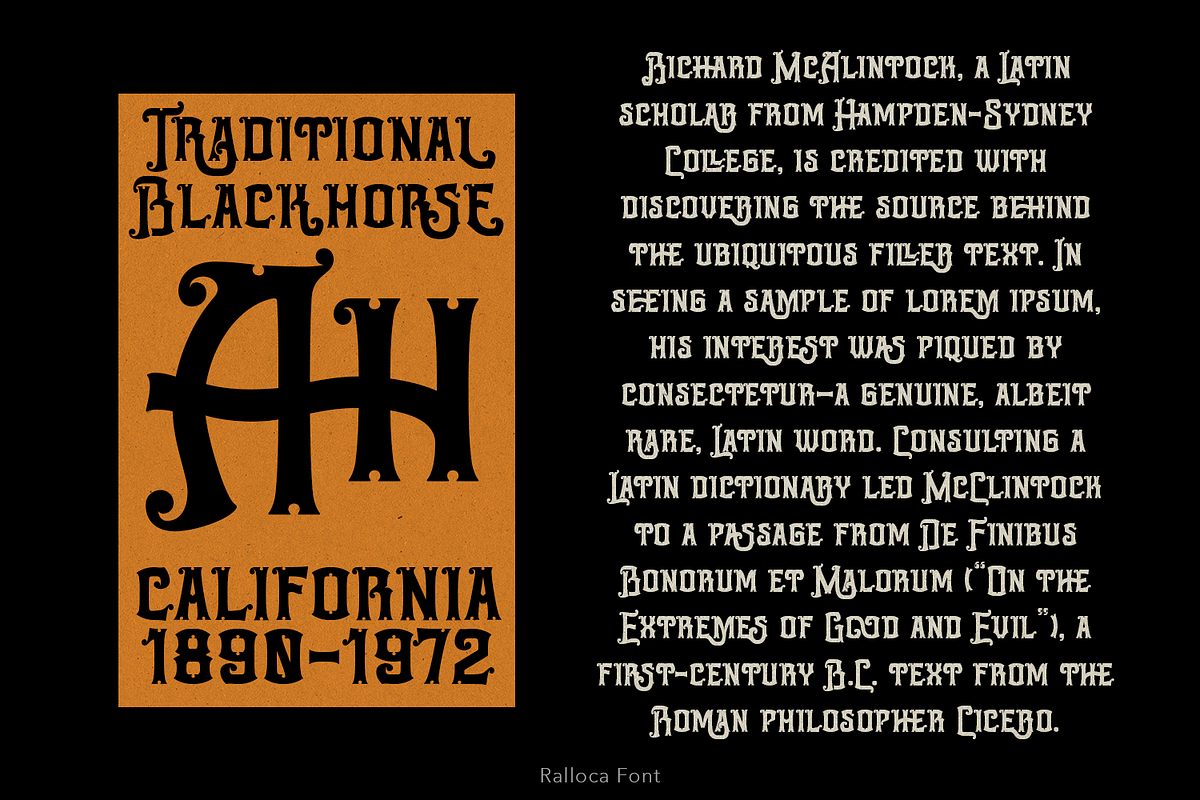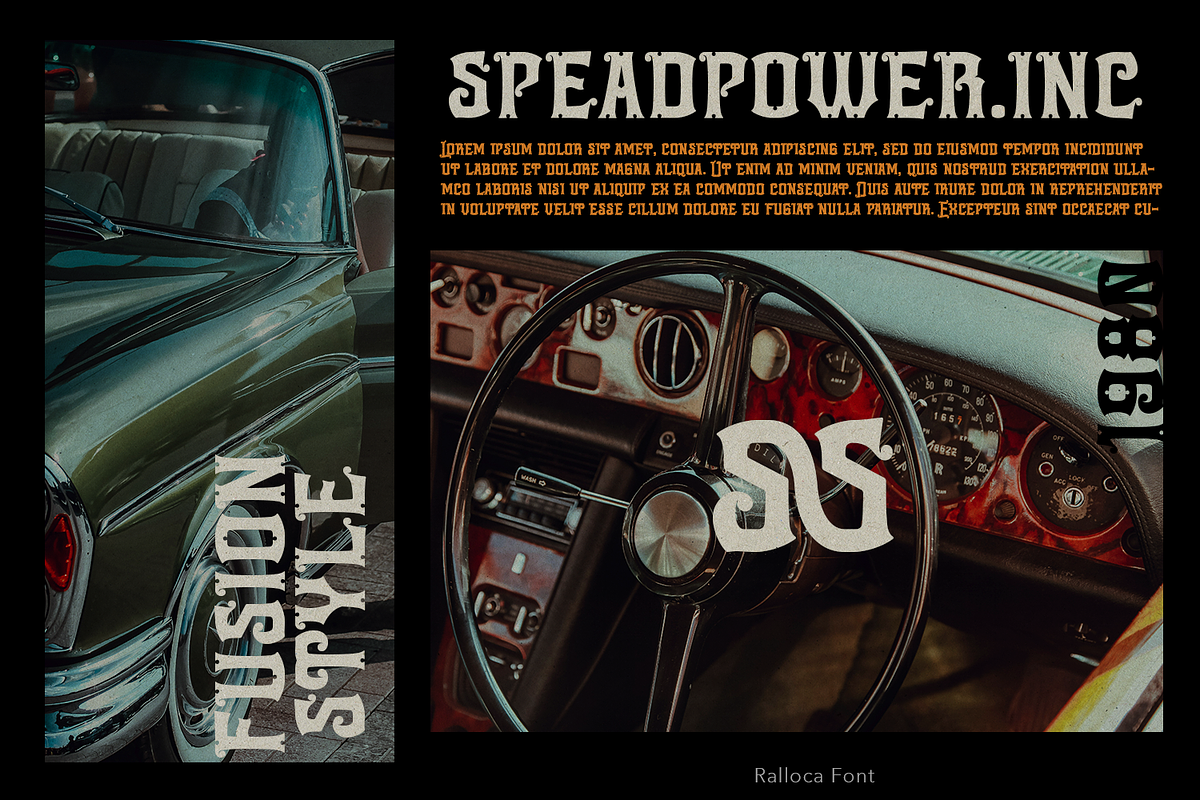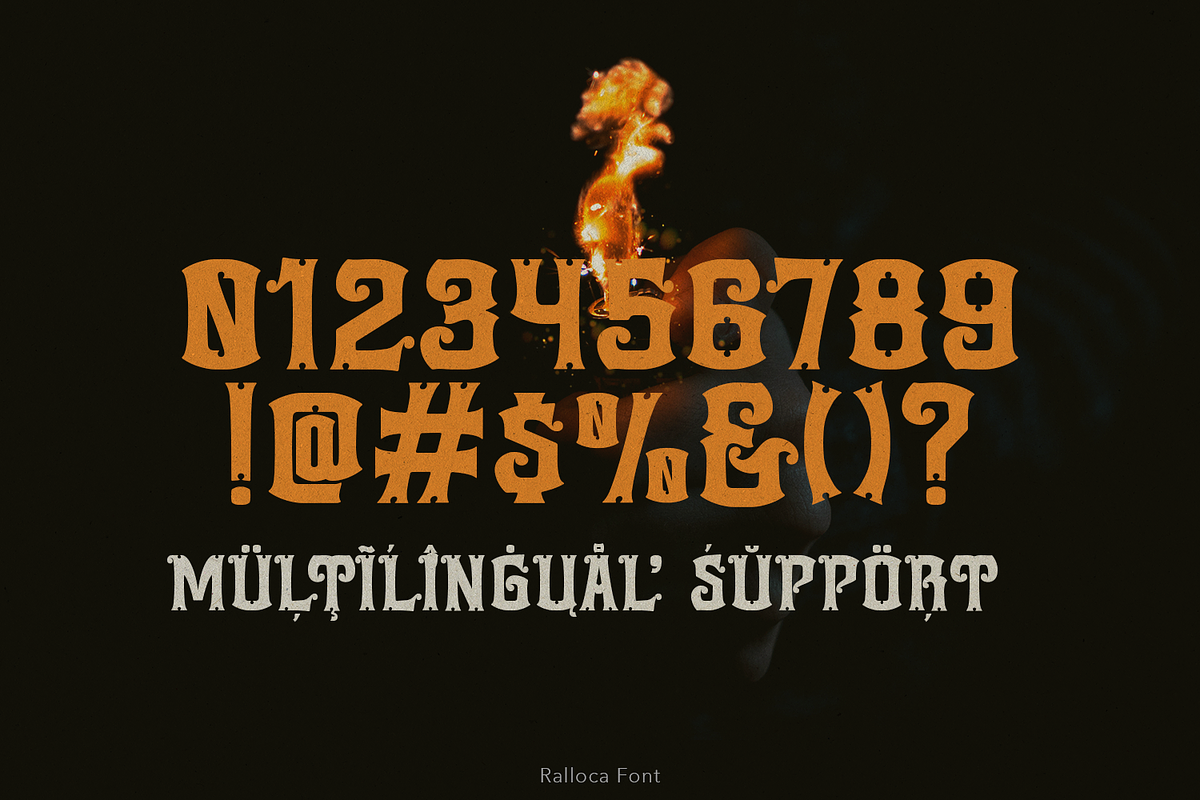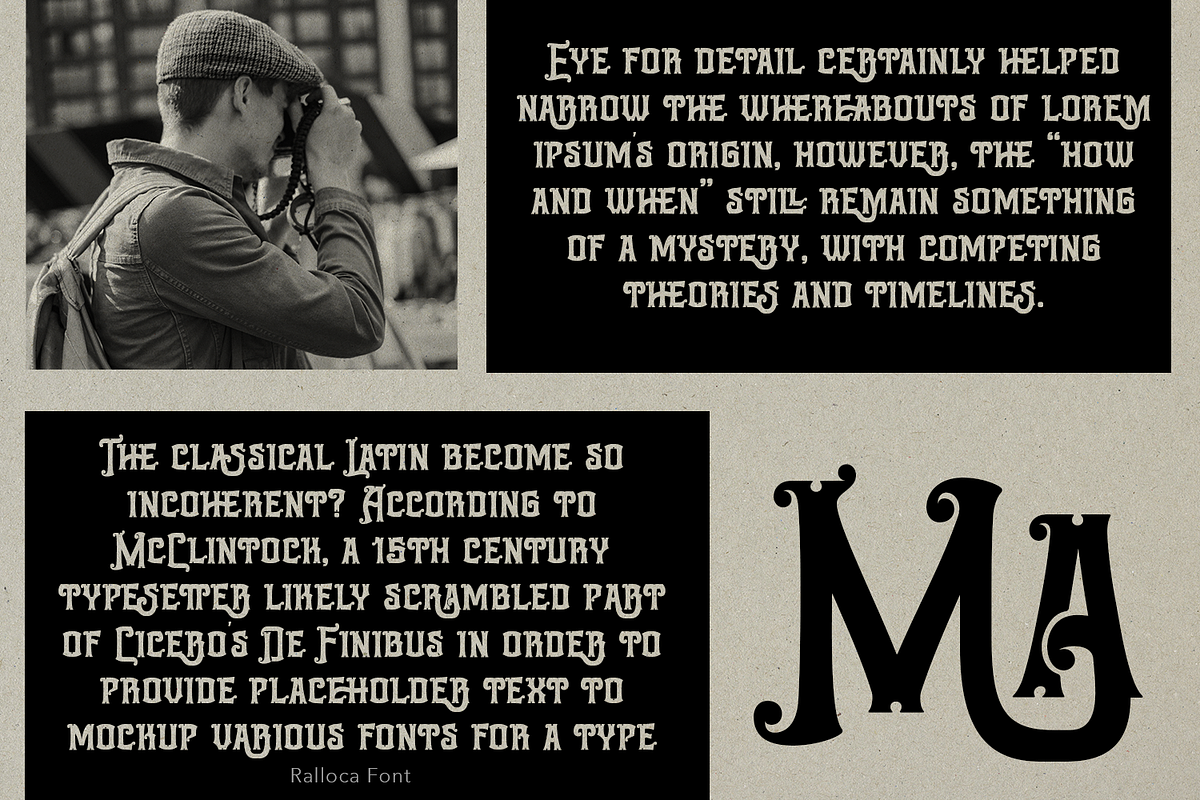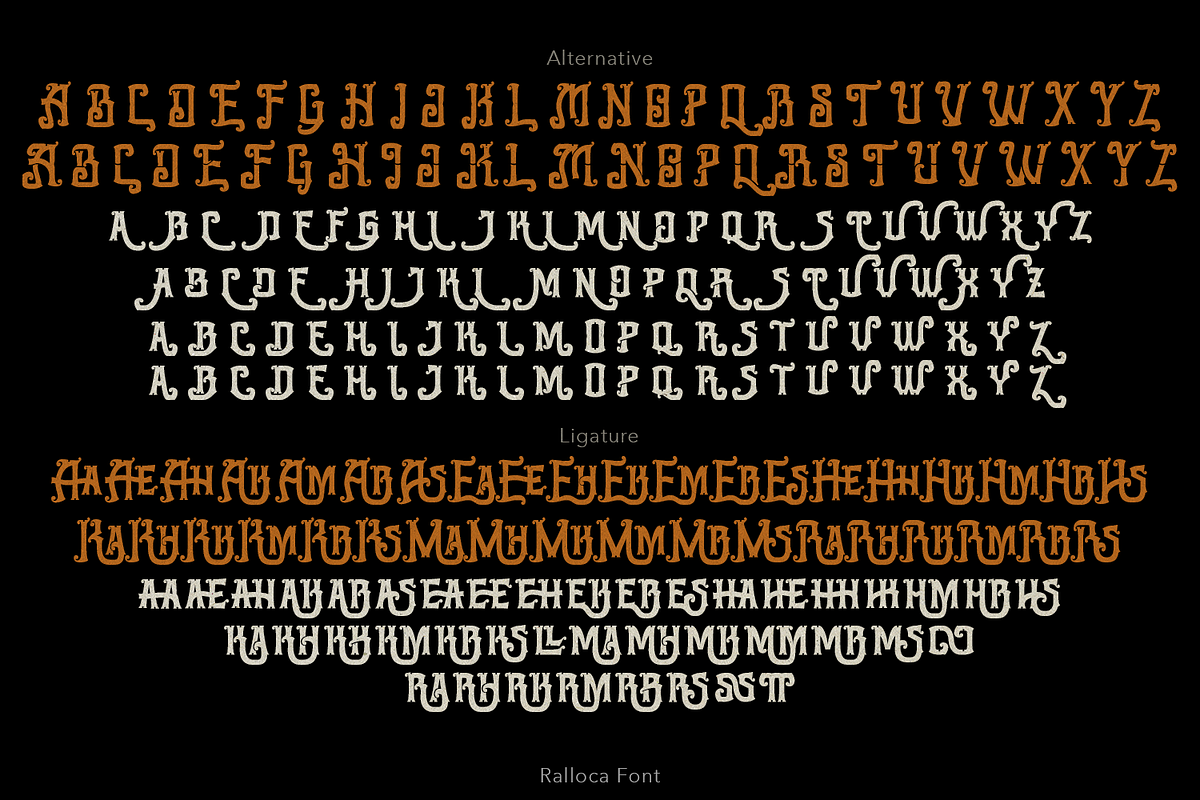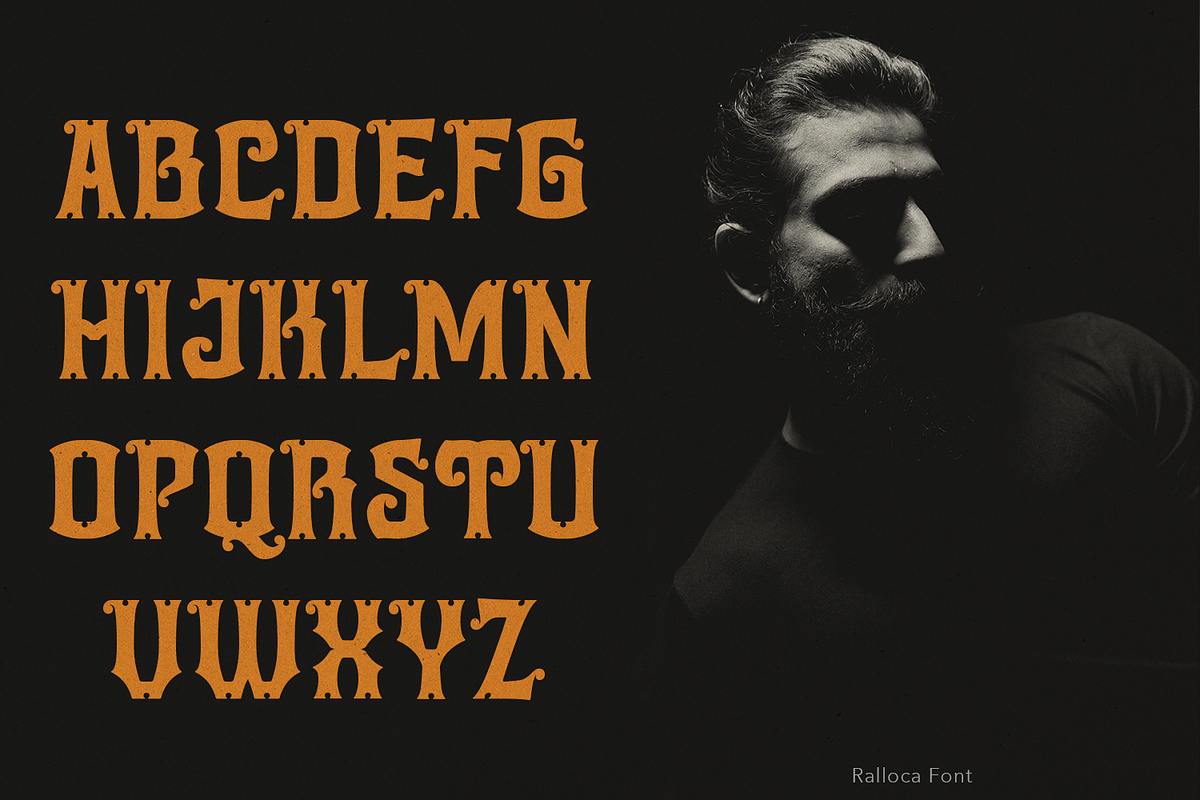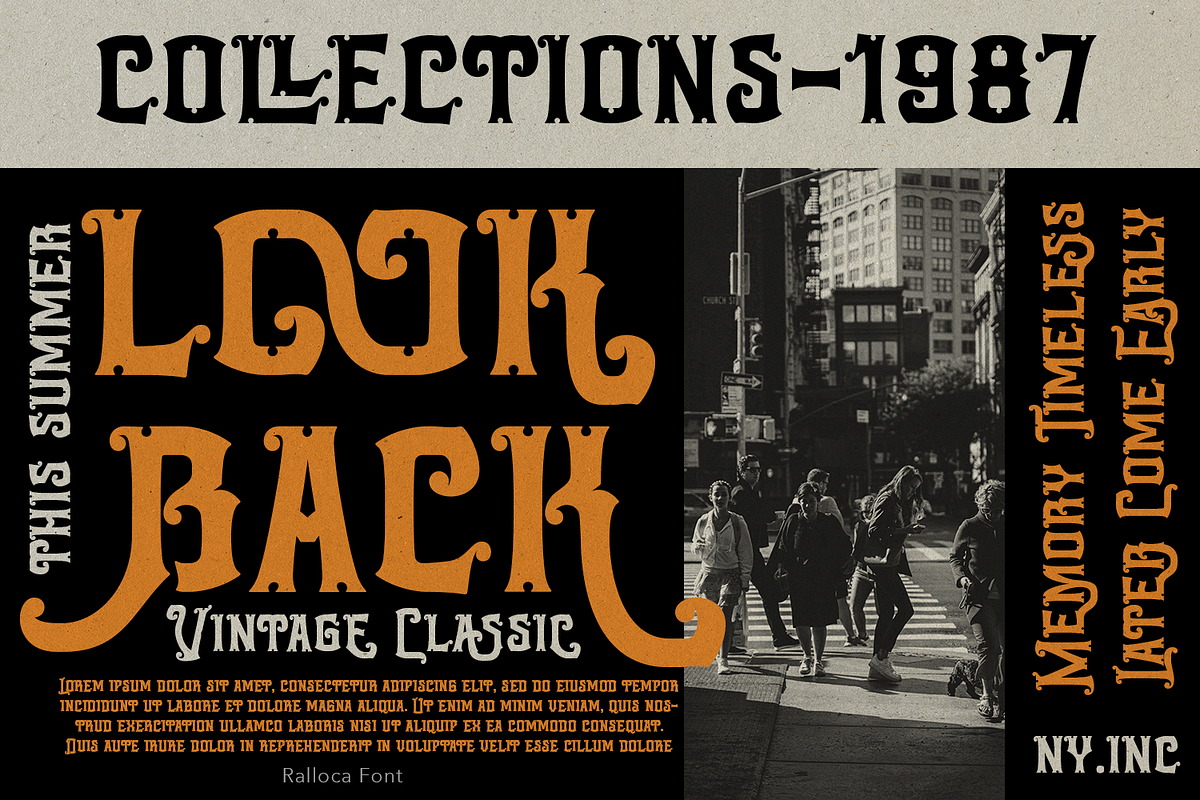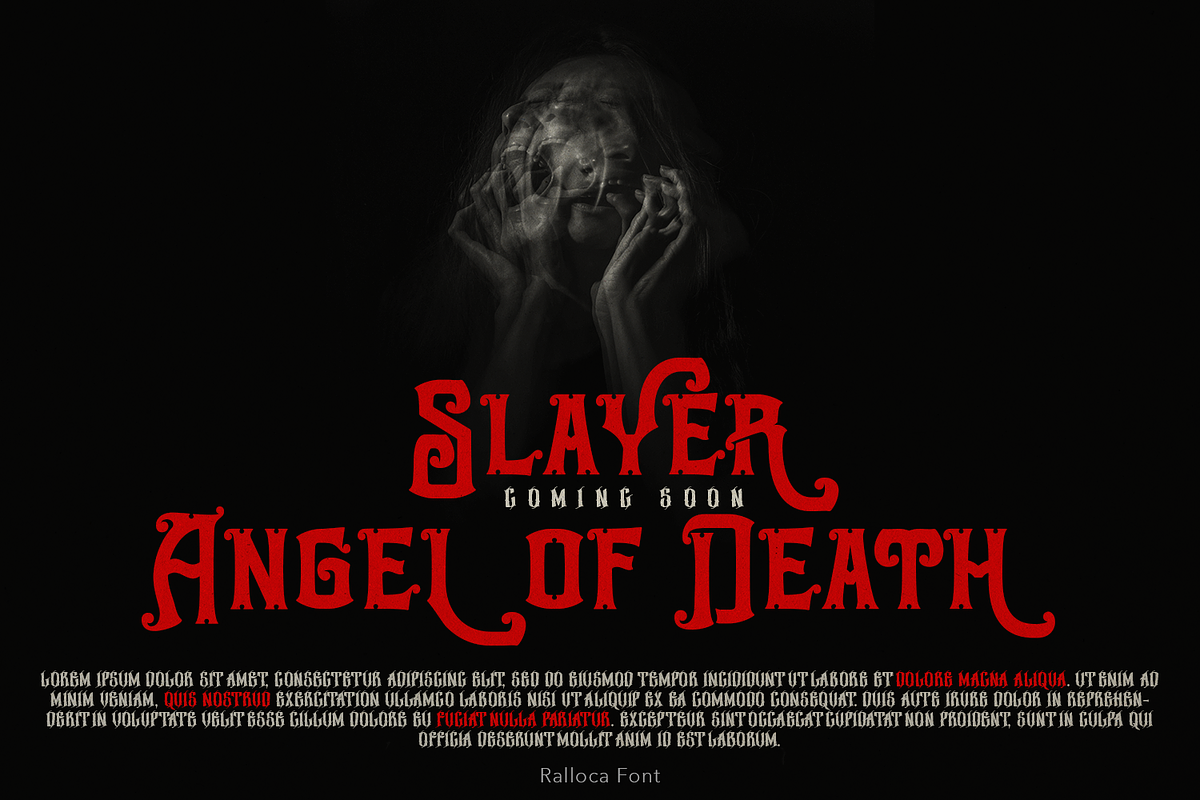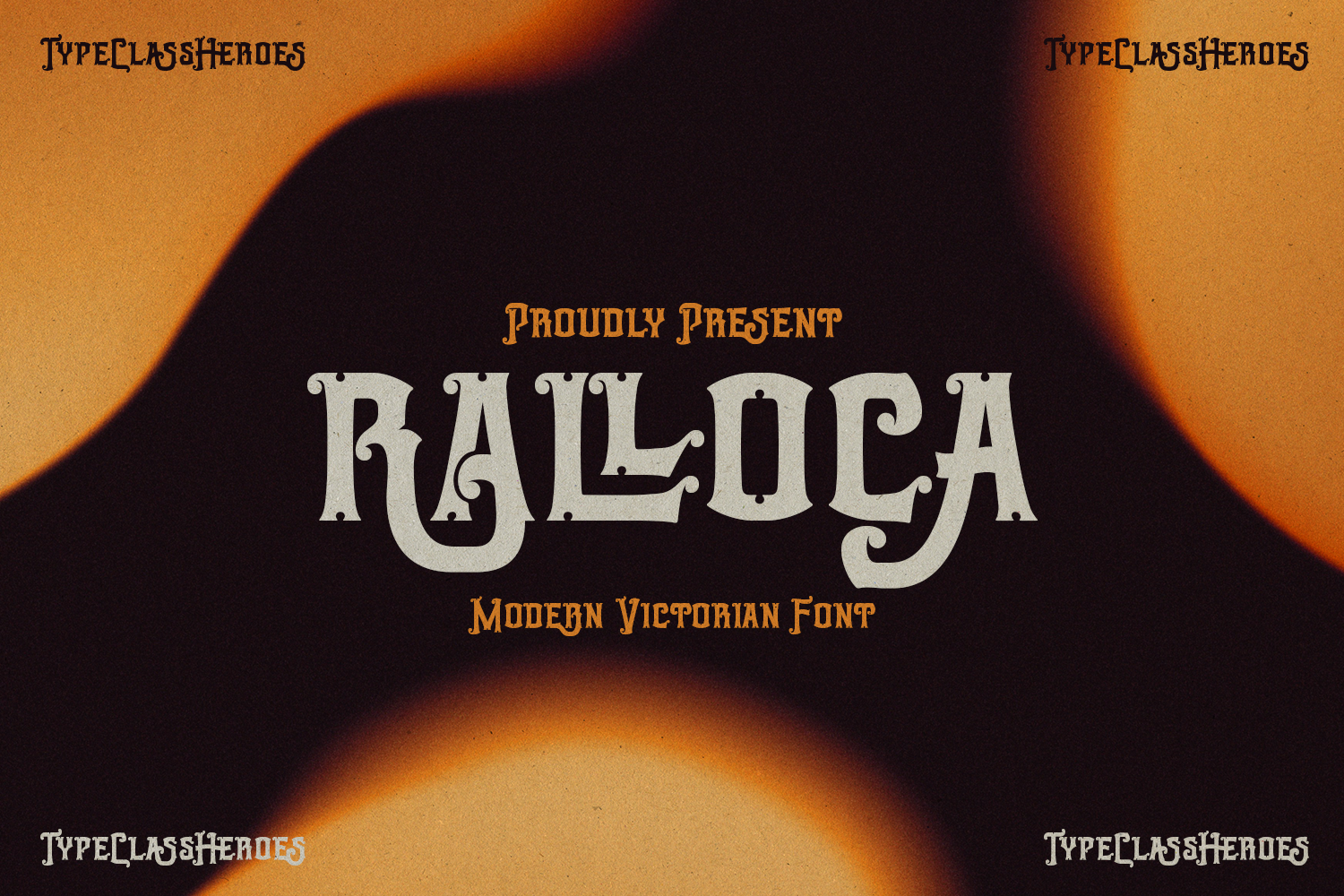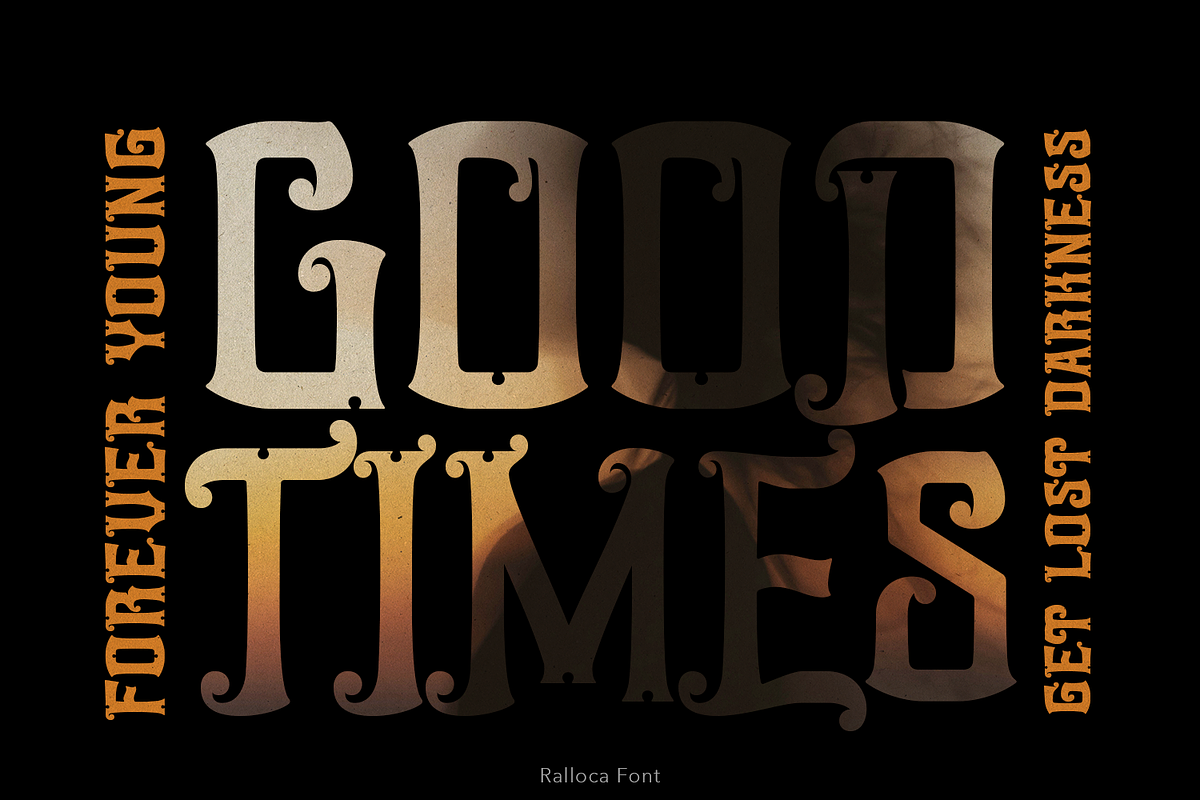
Ralloca Victorian Font
We proudly present "Ralloca" is an all-caps font with an elegant touch with a classic feel inspired by the typography from the 19th century, old fancy lettering, vintage illustration, and victorian calligraphy.
This font is very perfect for many display purposes in your product design if you want to a vintage and classic style, elegant and luxury. Such as book covers, product labels, logos badges, drink bottles, tattoo shop, coffee shops, fashion products, wedding invitation, etc.